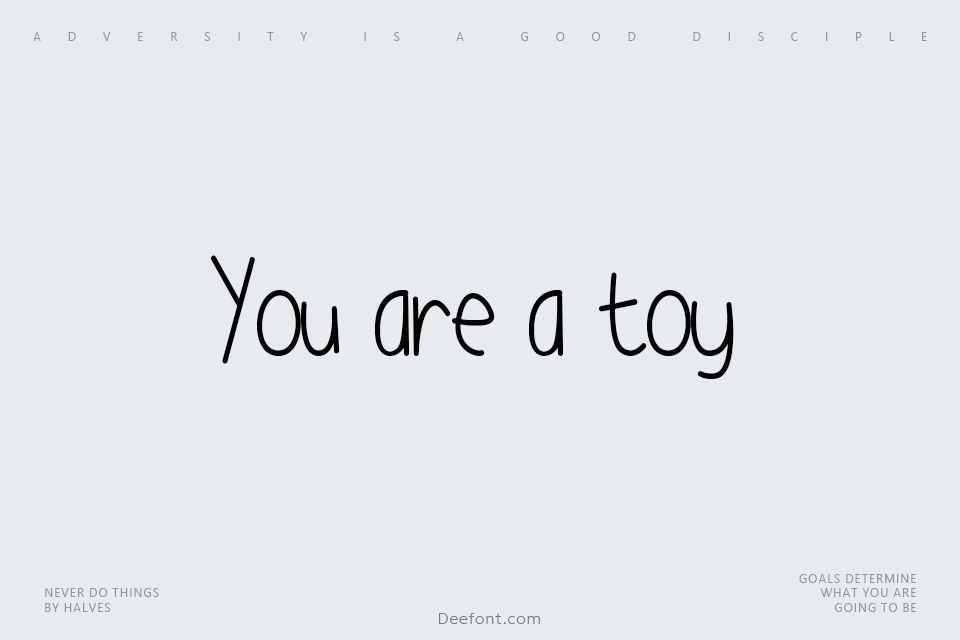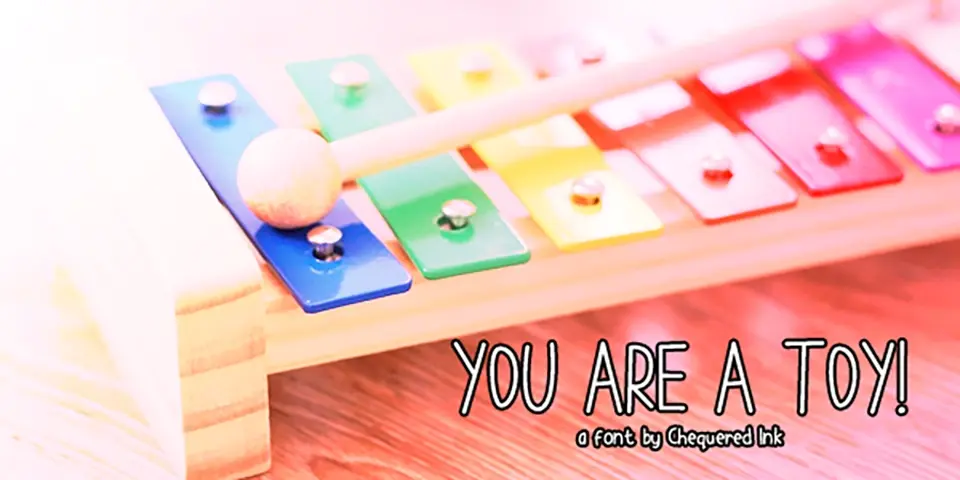
You are a toy Font
You are a TOY is a whimsical handwritten script font designed by Chequered Ink that brings playful personality to your creative projects. With its cheerful, toy-like aesthetic and smooth letterforms, this versatile typeface is perfect for greeting cards, children’s illustrations, and casual branding. The font combines friendly charm with readable elegance, making it ideal for designs that need a touch of lighthearted fun and creative expression.